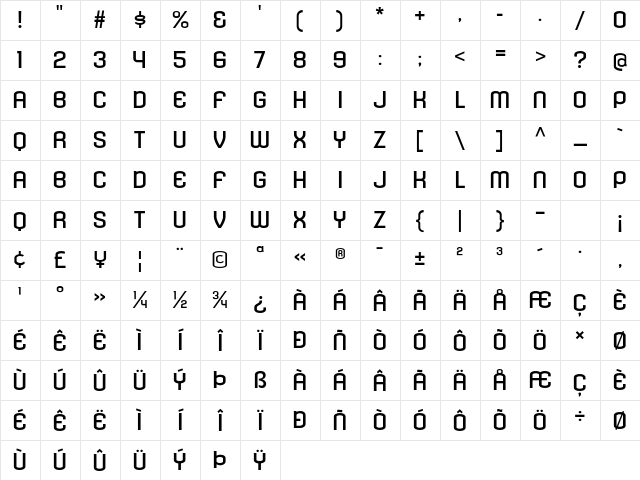
Complete Kleptocracy Titling Expanded glyph index. Displaying only characters natively supported by Kleptocracy Titling Expanded font.
Kleptocracy Titling is a composed and adaptable typeface that performs quietly and consistently across a wide range of design contexts.